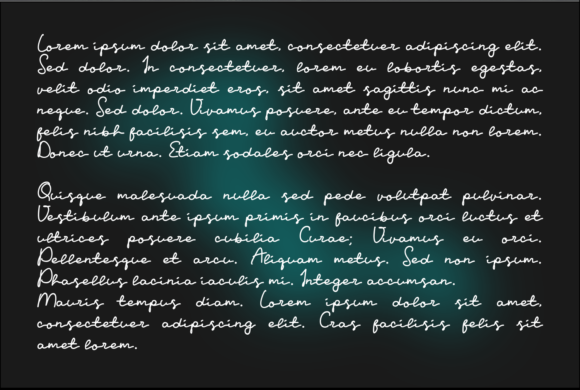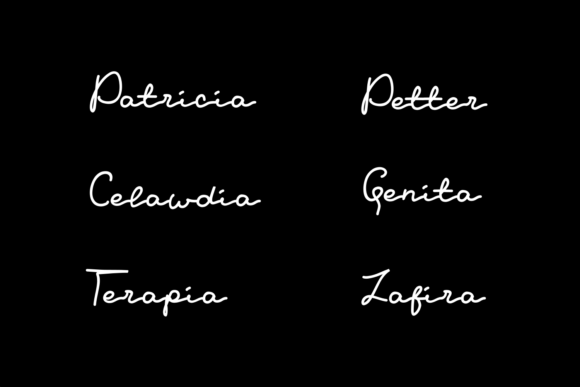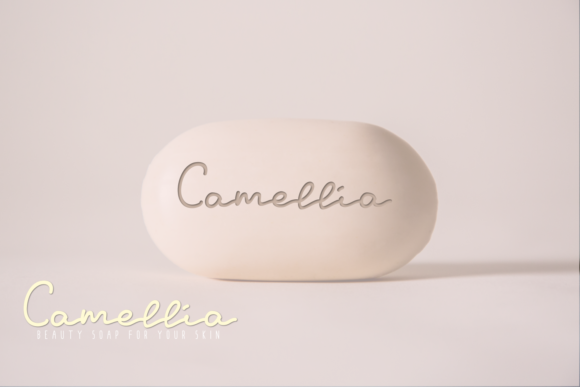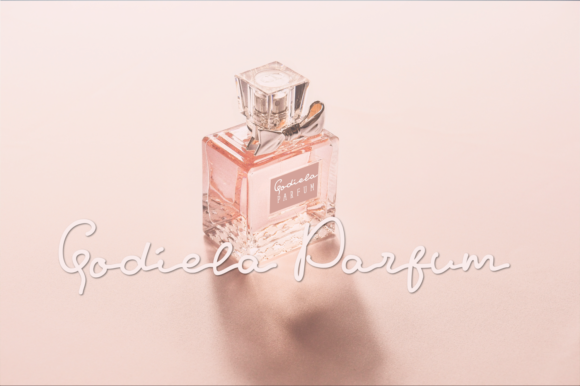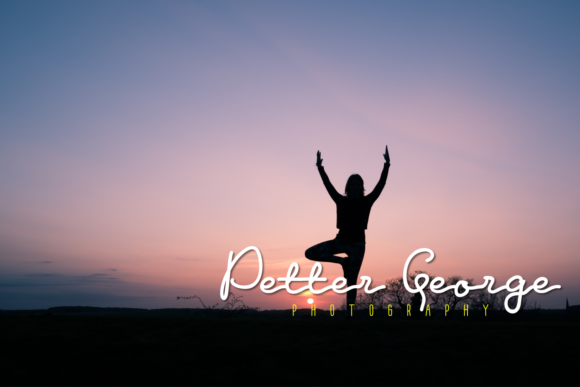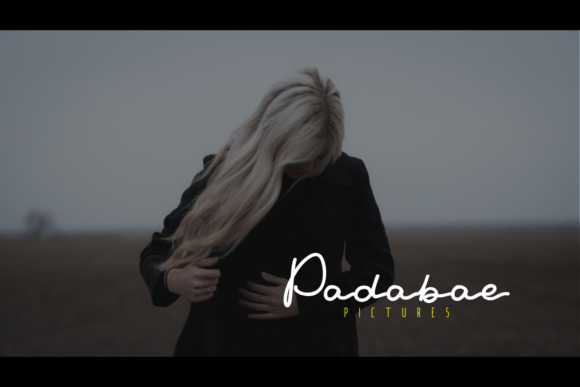
Gedabol Font: Elevate Your Designs with Elegance and Authenticity
In the world of typography, fonts play a crucial role in conveying the tone and personality of a design. For designers and crafters seeking a unique and captivating font, Gedabol is an exceptional choice. This casual and modern handwritten font is carefully crafted with a touch of elegance, making it perfect for creating original and outstanding designs.
The Beauty of Gedabol Font
Gedabol is a beautiful combination of timeless elegance and authentic calligraphy. Its classic style is reminiscent of traditional handwritten fonts, while its friendly feel makes it approachable and relatable. This font features an incredibly classic style, which is balanced by its modern and casual undertones. The result is a font that exudes sophistication and refinement, making it ideal for a wide range of design applications.
Key Characteristics of Gedabol Font
- Handwritten style: Gedabol boasts a genuine handwritten look, which adds a personal touch to any design.
- Elegant and refined: The font’s classic style and elegant lines make it perfect for designs that require a touch of sophistication.
- Modern and casual: Gedabol’s modern undertones ensure that it remains approachable and relatable, making it suitable for a wide range of design applications.
- Timeless appeal: The font’s timeless elegance ensures that it will remain relevant and stylish for years to come.
Why Choose Gedabol Font?
For designers and crafters seeking a font that can elevate their designs, Gedabol is an excellent choice. Here are just a few reasons why:
- Unique and distinctive: Gedabol’s classic style and modern undertones make it a unique and distinctive font that will set your designs apart.
- Versatile: The font’s friendly feel and elegant lines make it suitable for a wide range of design applications, from wedding invitations to branding and advertising.
- Easy to read: Gedabol’s clear and legible lines ensure that your message will be conveyed clearly and effectively.
- High-quality: As a carefully crafted font, Gedabol is of exceptionally high quality, ensuring that your designs will look professional and polished.
Design Applications for Gedabol Font
Gedabol is a versatile font that can be used in a wide range of design applications, including:
- Wedding invitations and stationery: Gedabol’s elegant lines and classic style make it perfect for wedding invitations, save-the-date cards, and other stationery.
- Branding and advertising: The font’s modern undertones and friendly feel make it suitable for branding and advertising applications, such as logos, brochures, and flyers.
- Packaging design: Gedabol’s clear and legible lines make it ideal for packaging design, where clear communication of product information is essential.
- Digital design: The font’s high-quality lines and elegant style make it suitable for digital design applications, such as website headers, social media graphics, and email newsletters.
In conclusion, Gedabol font is an exceptional choice for designers and crafters seeking a unique and captivating font. Its beautiful combination of timeless elegance and authentic calligraphy makes it perfect for creating original and outstanding designs. With its classic style, modern undertones, and friendly feel, Gedabol is a versatile font that can be used in a wide range of design applications. Whether you’re designing wedding invitations, branding materials, or packaging, Gedabol is sure to elevate your designs with elegance and authenticity.